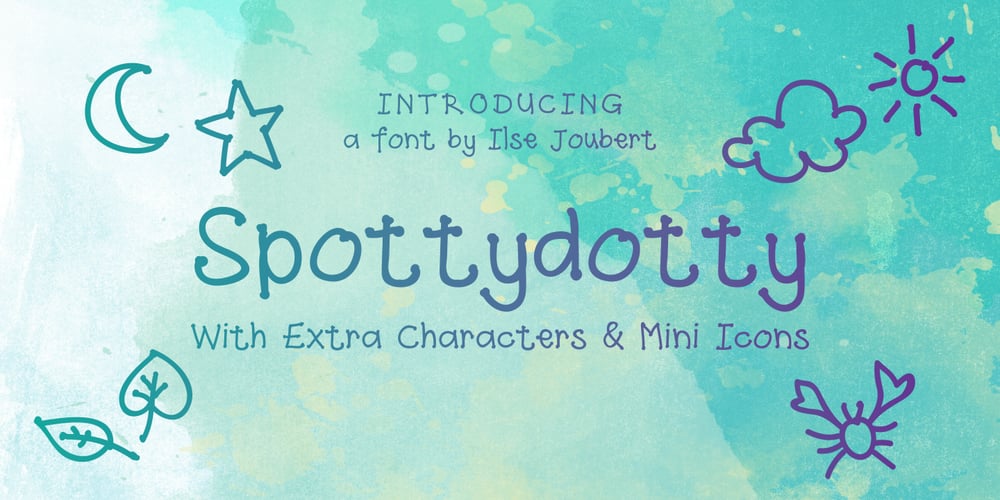
Spottydotty
Spottydotty font
Spottydotty Font Family was designed by Ilse Joubert and published by Ilse Joubert. Spottydotty contains 2 styles and family package options. My font is a playful, quirky handwritten font with child-like qualities. It is meant to be slightly imperfect in appearance and for even more fun, I have included a few mini icons, as an add-on to this font.